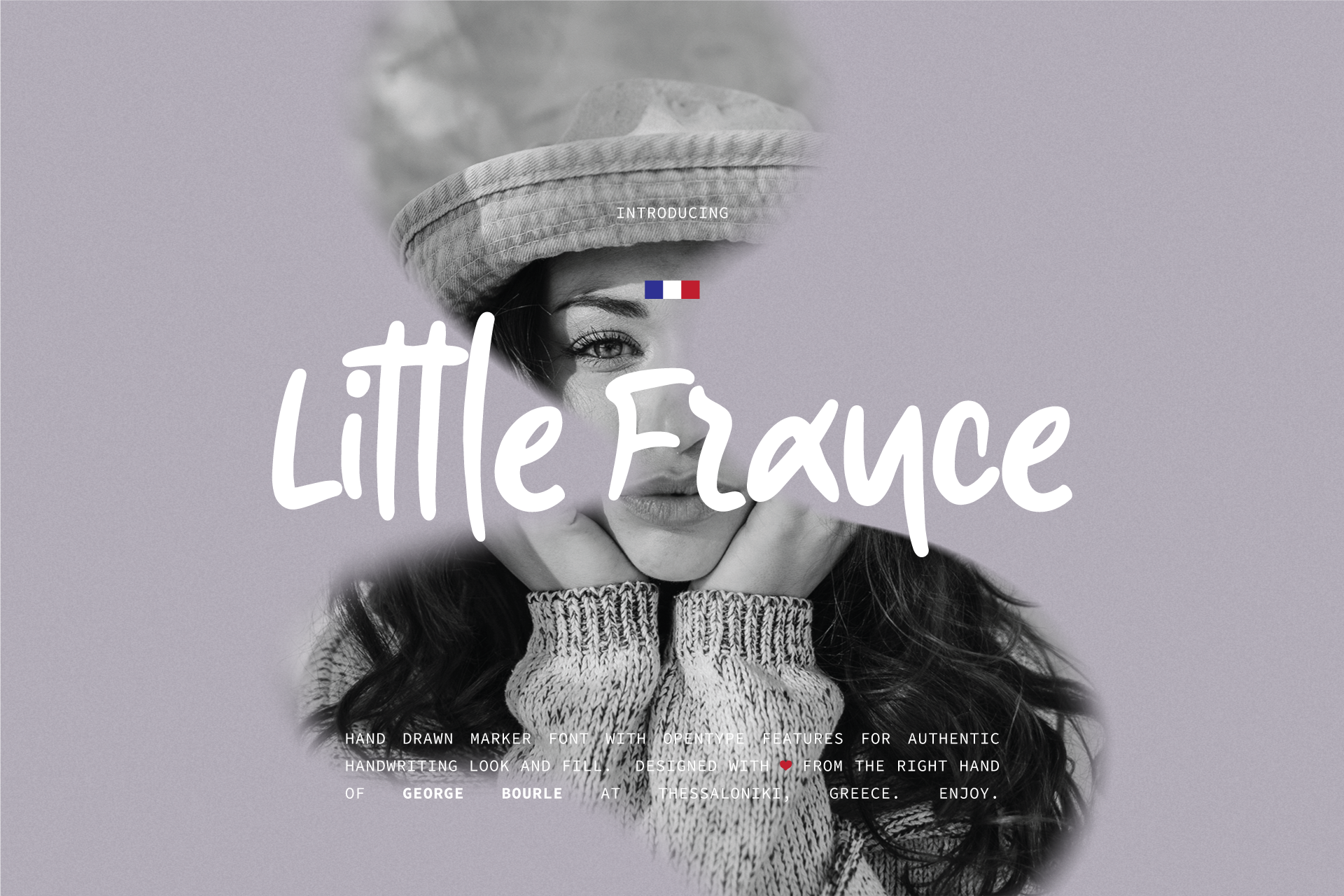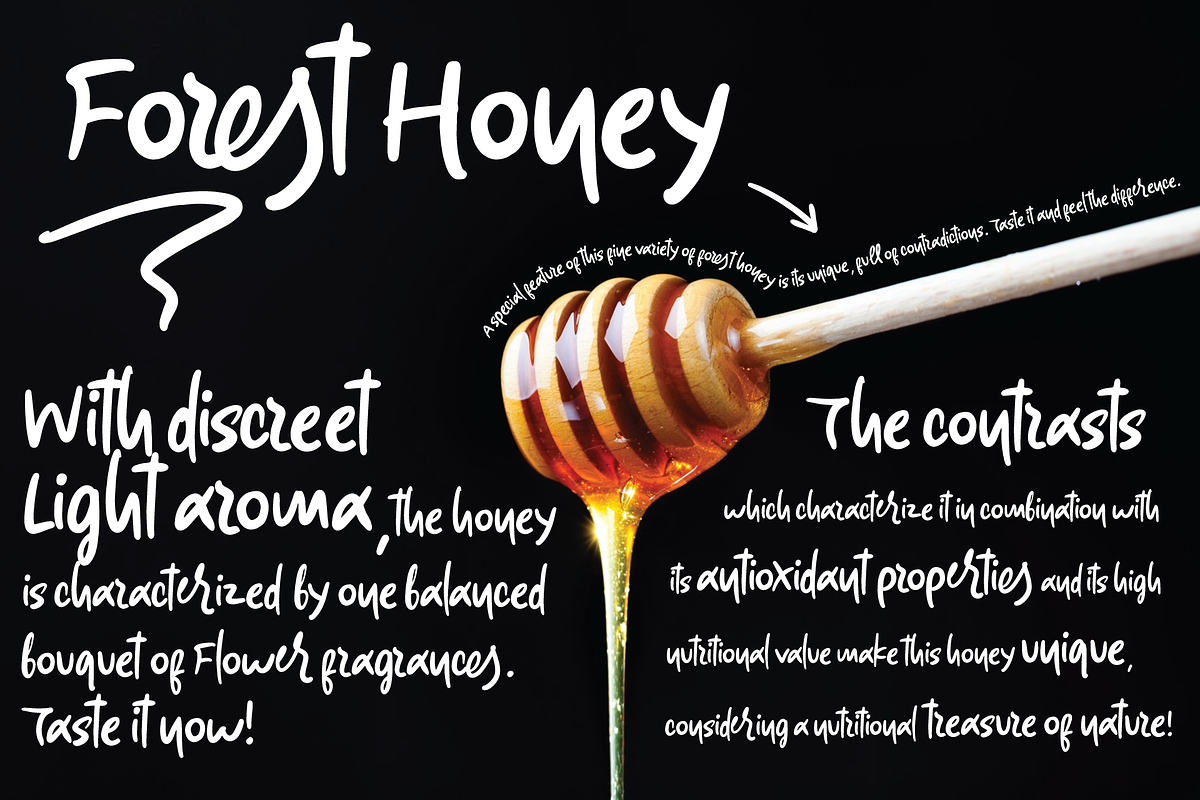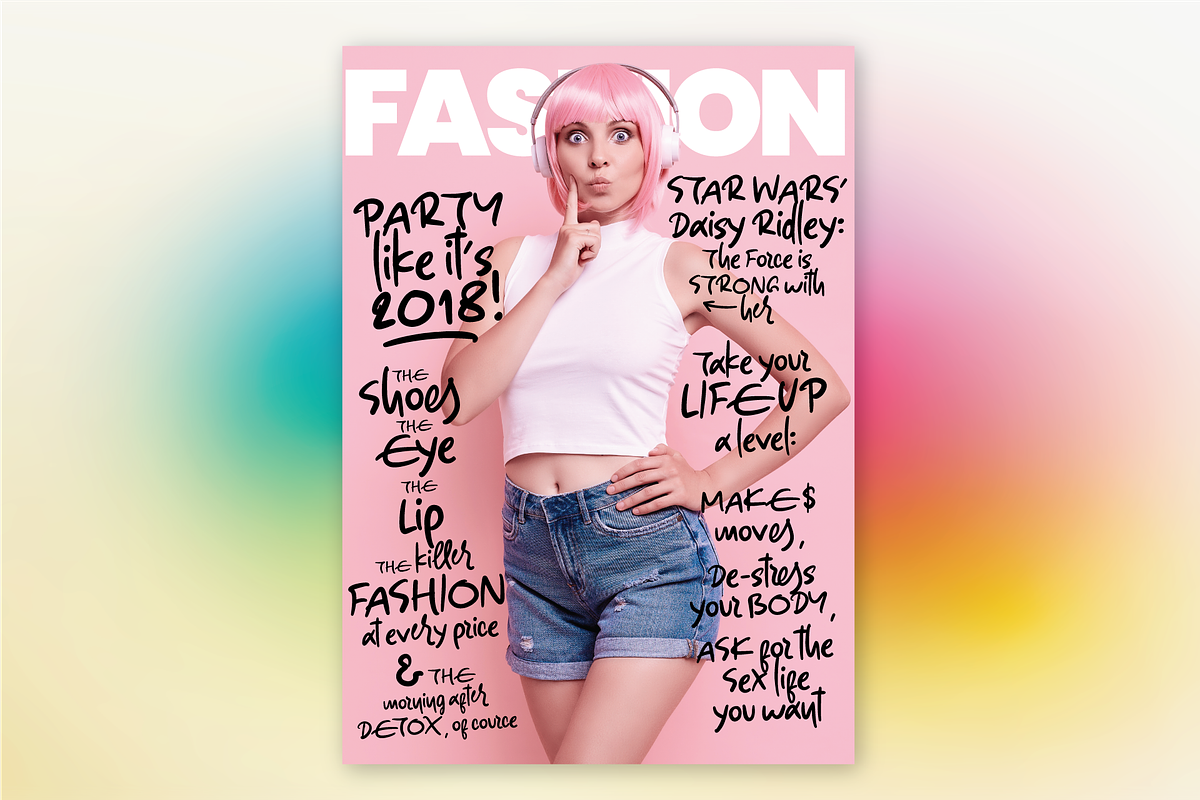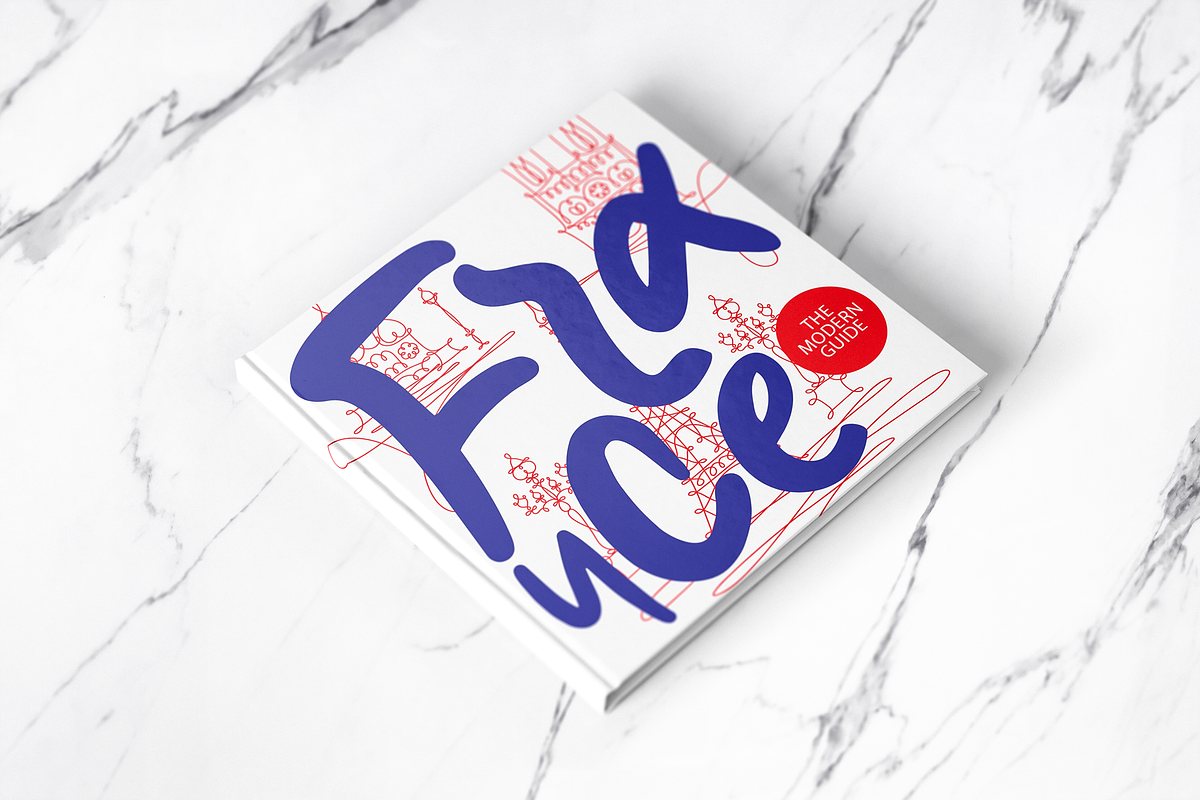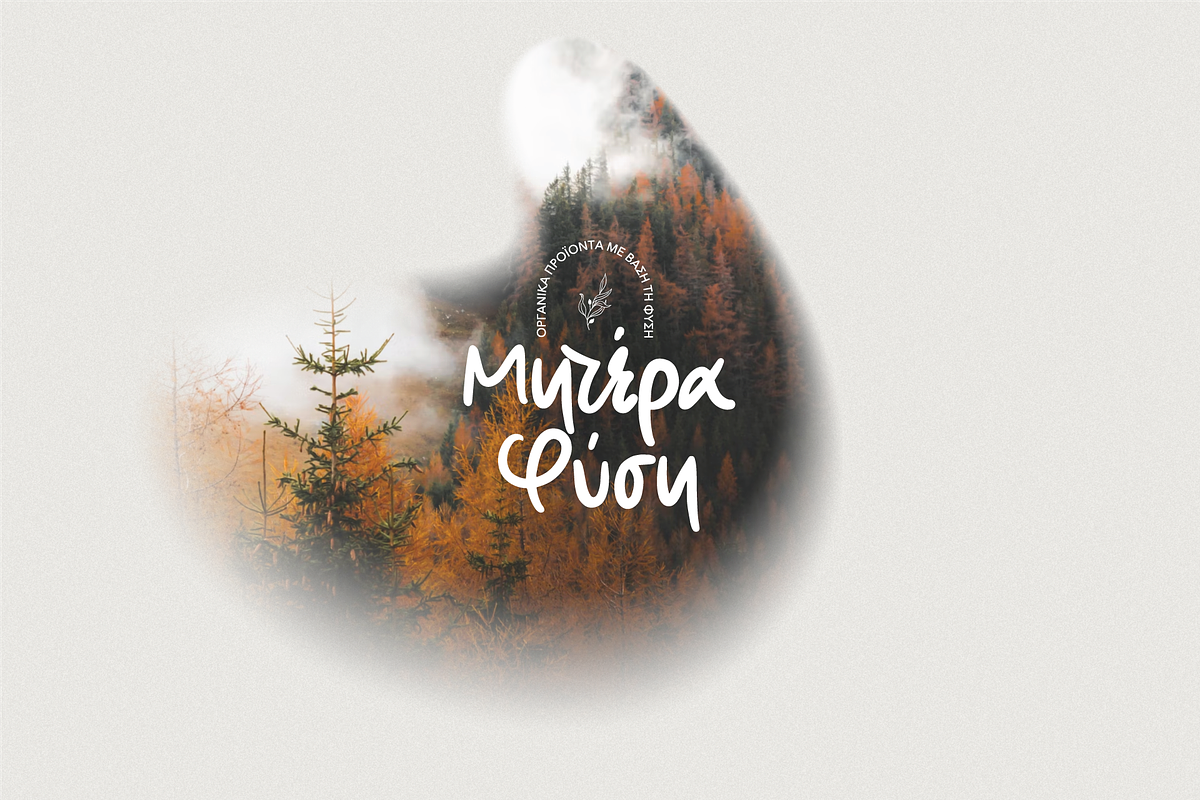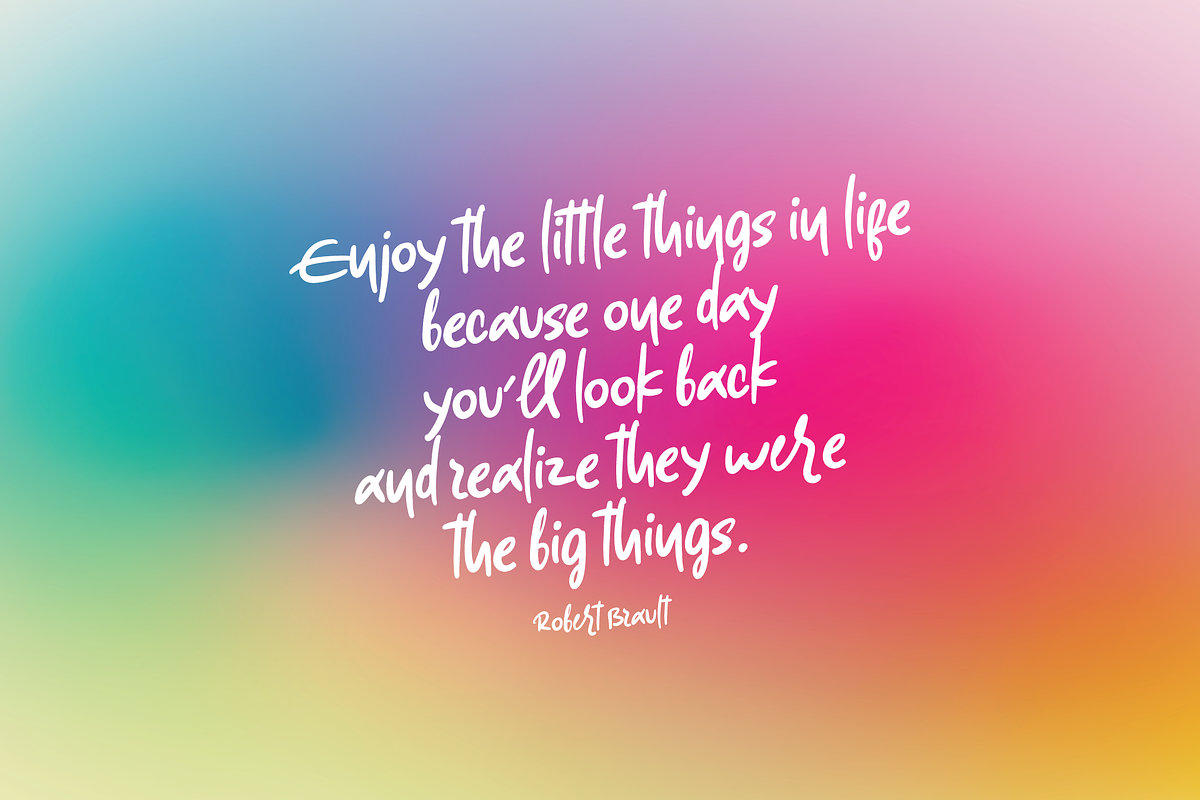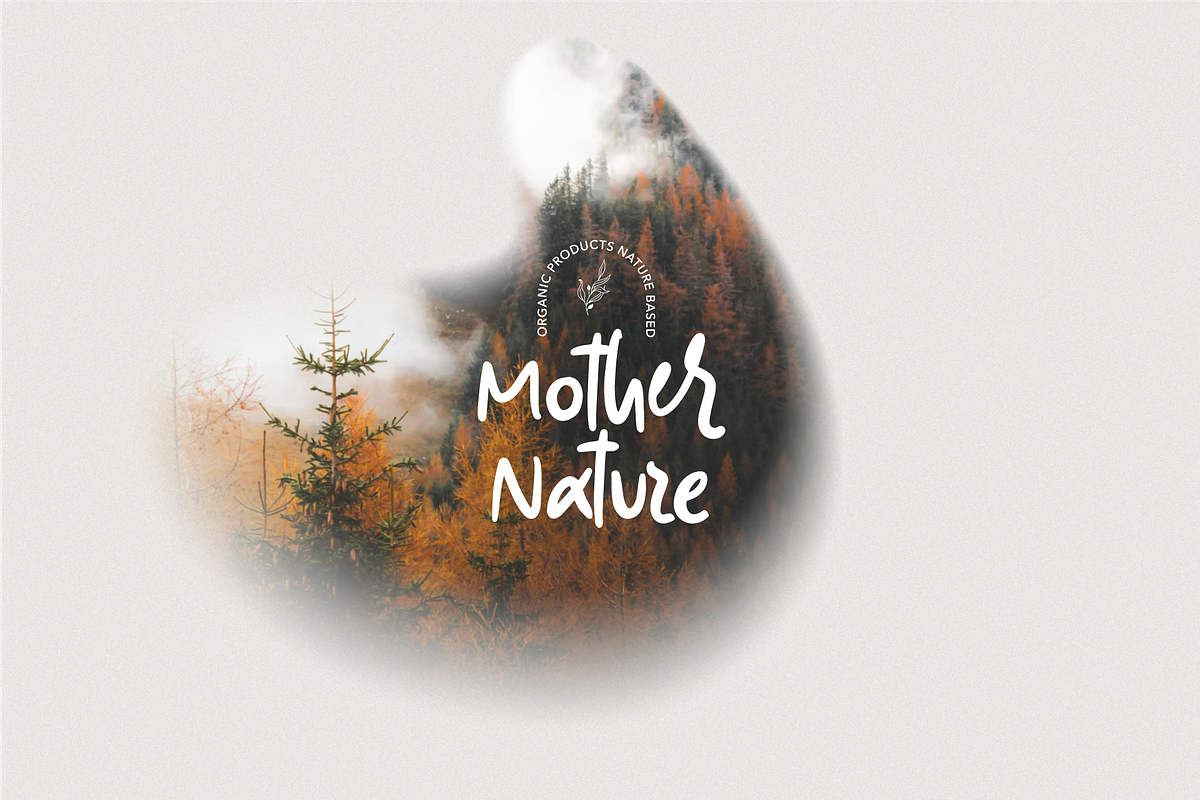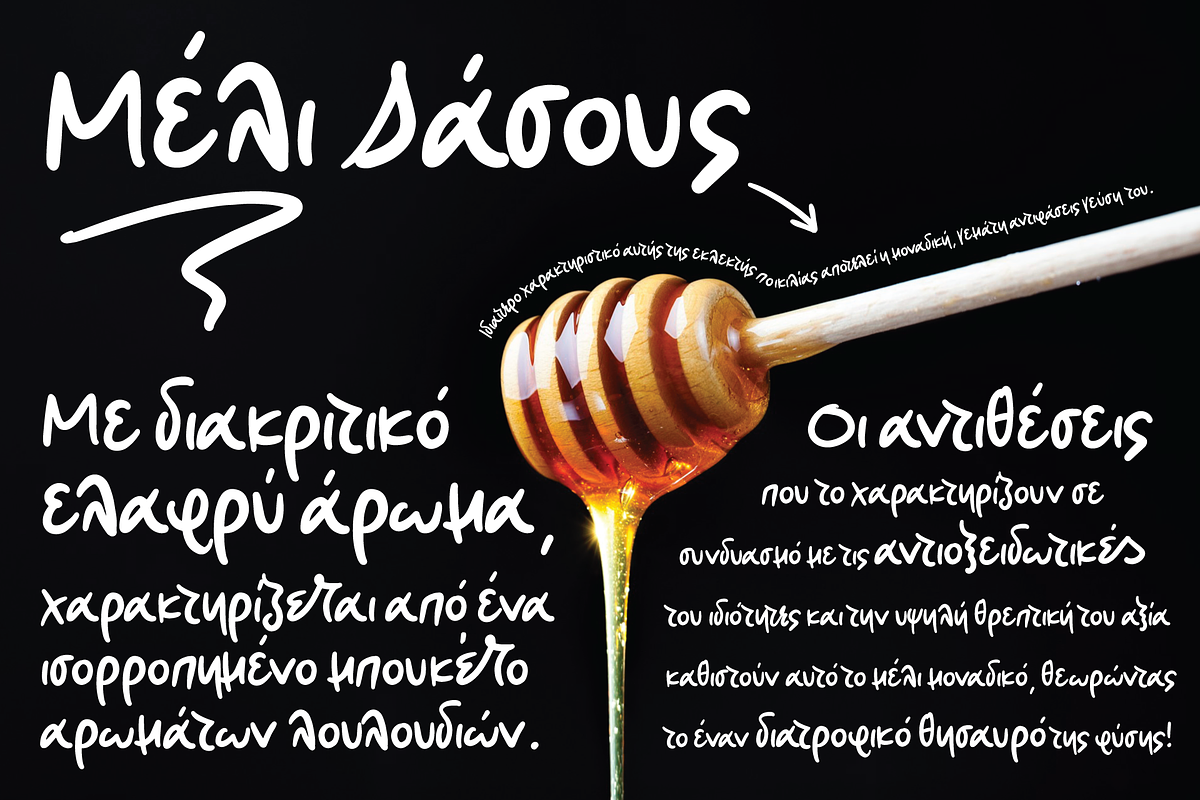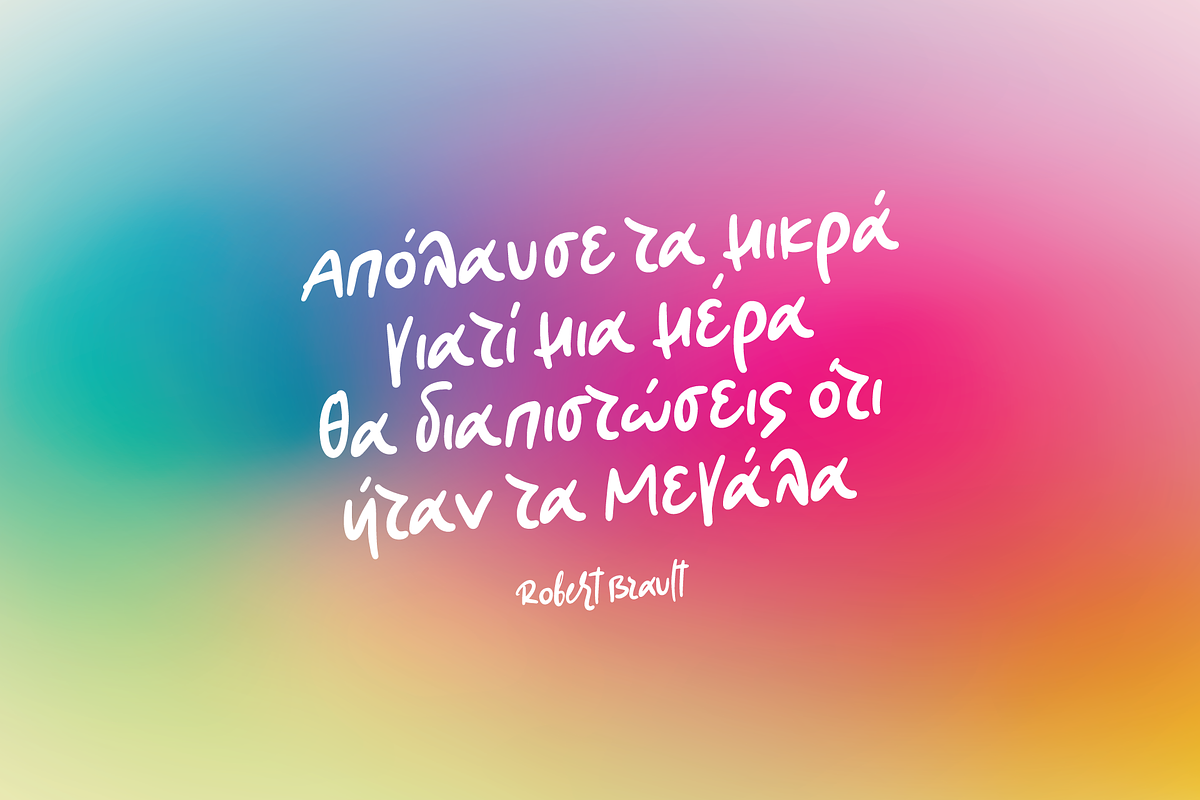
Little France marker font
Introducing Little France, a new hand-drawn font that combines the beauty of Greek and Latin characters.
Inspired by the playful and creative style of writing with a marker, Little France is perfect for adding a touch of personal charm to your designs.
The font includes dedicated Greek alphabet as well as Latin ones, making it versatile and suitable for a wide range of projects.
The font also features ligatures and alternates, giving you even more options to make your text stand out.
Whether you're working on a logo, packaging, or social media, Little France is sure to add a unique and playful touch to your designs.